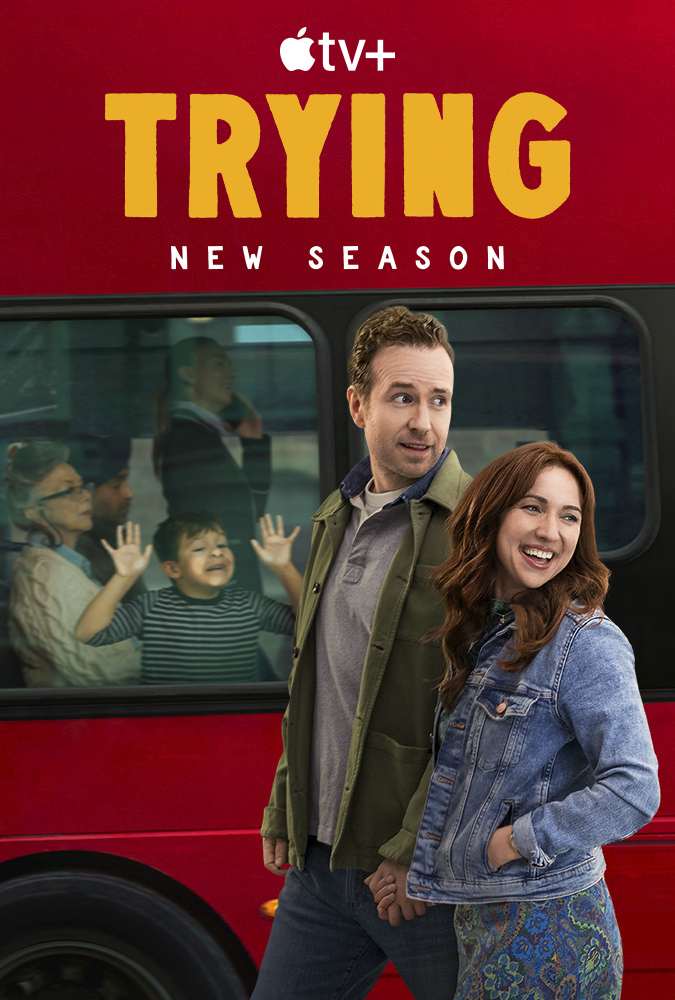
Trying [TV Show] Font
ComedyTrying"Trying" is a British television series that premiered in 2020 on Apple TV+. The show stars Rafe Spall and Esther Smith as a couple, who are trying to have a baby through adoption and surrogacy.
The title "Trying" of the TV series seems to use Sign Stickers Backfill designed by Jeff Levine. Sign Stickers is a retro display typeface based on the lettering on Duro Decal Company's early 1960s water-applied decal transfers.